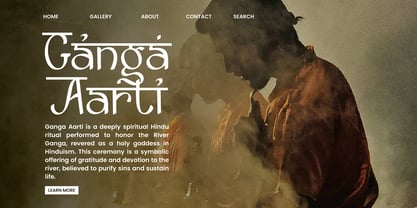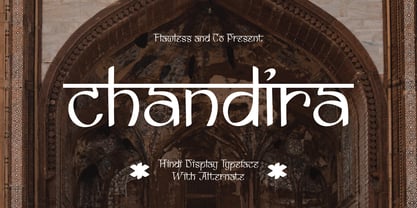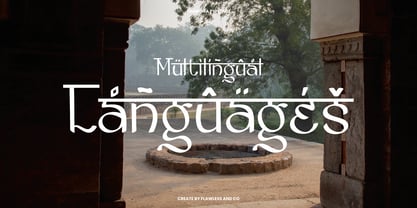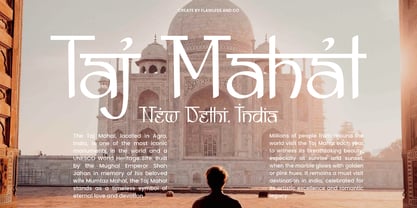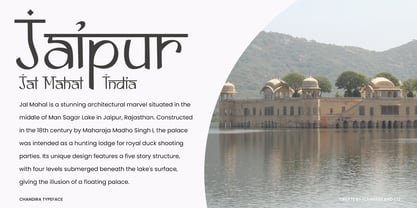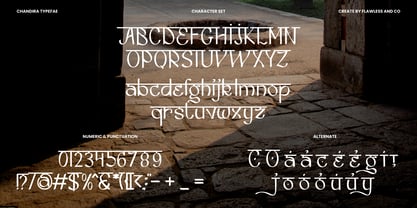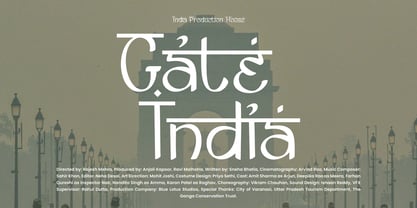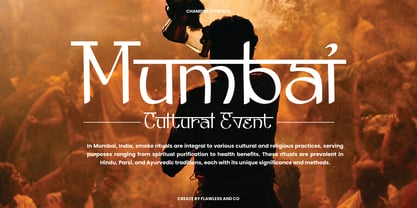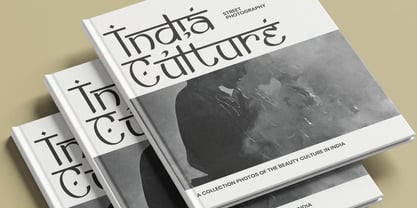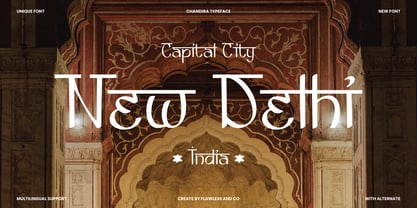
Chandira
by Flawlessandco
The Chandira Font Family was designed by Achmad Yani and published by Flawlessandco. Chandira contains 1 styles. More about this family
Chandira is a Hindi-Inspired Display Font evoking the elegance of South Asian script forms, Chandira blends modern typography with the timeless charm of traditional Hindi aesthetics. Its graceful curves and unique alternates mimic the rhythm of ancient calligraphy while remaining crisp and versatile for contemporary design. Chandira is more than just a font — it’s a cultural expression captured in letterforms. Perfect for creative projects that celebrate heritage, storytelling, and visual depth.
Multilingual, Uppercase alphabet A-Z, Lowercase alphabet a-z, Numbers 0-9, Some punctuation, Alternates & Ligatures
Designers: Achmad Yani
Foundry: Flawlessandco